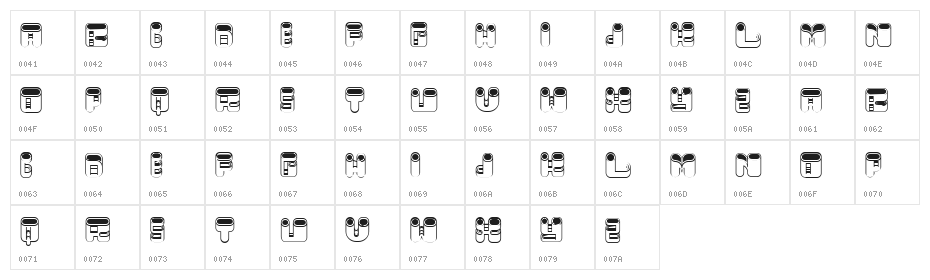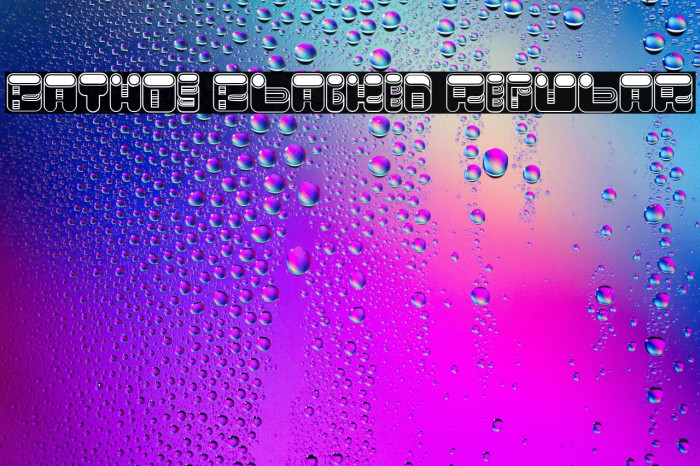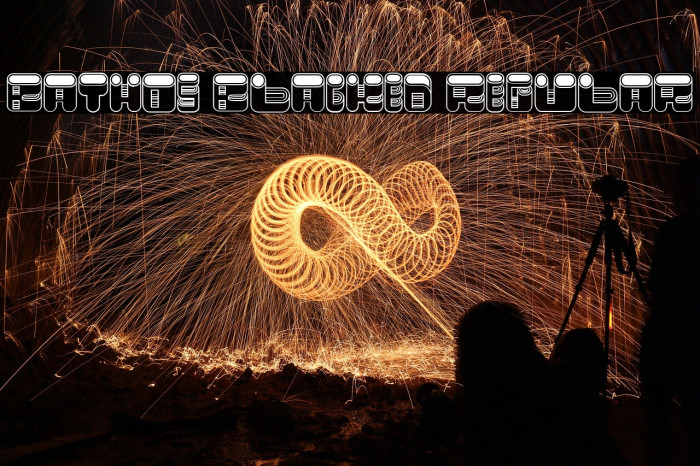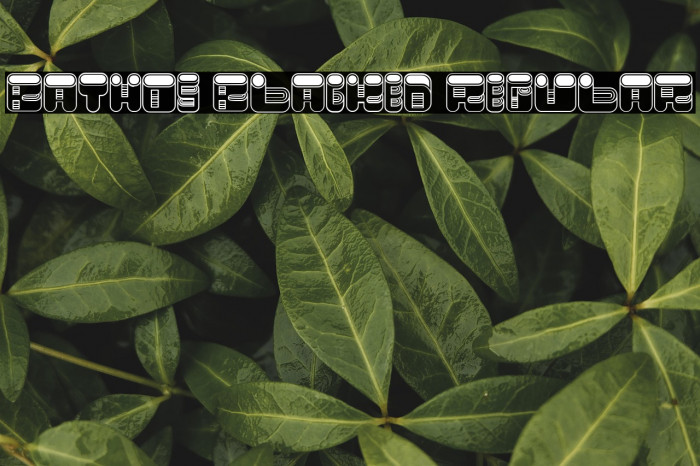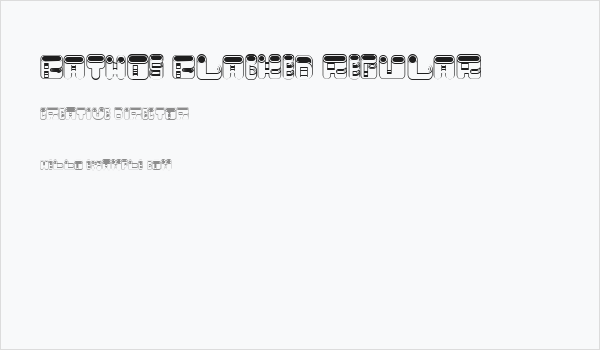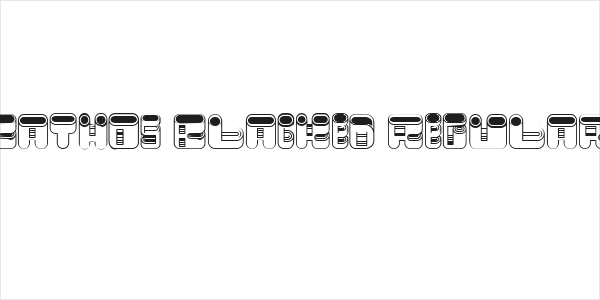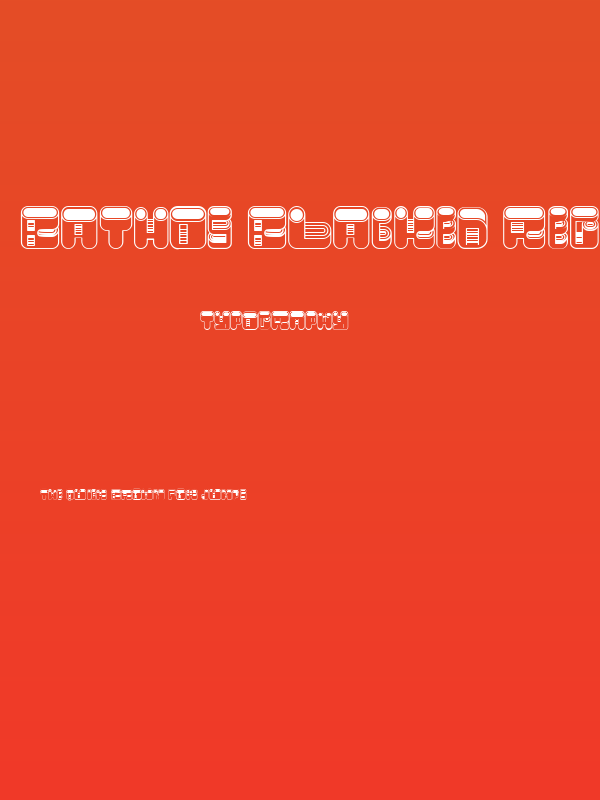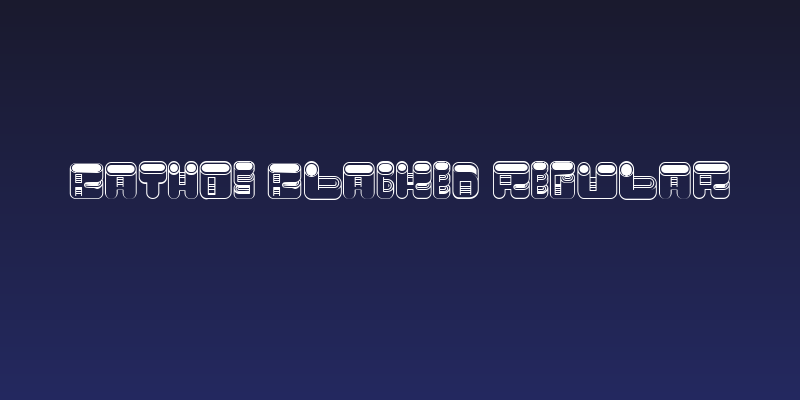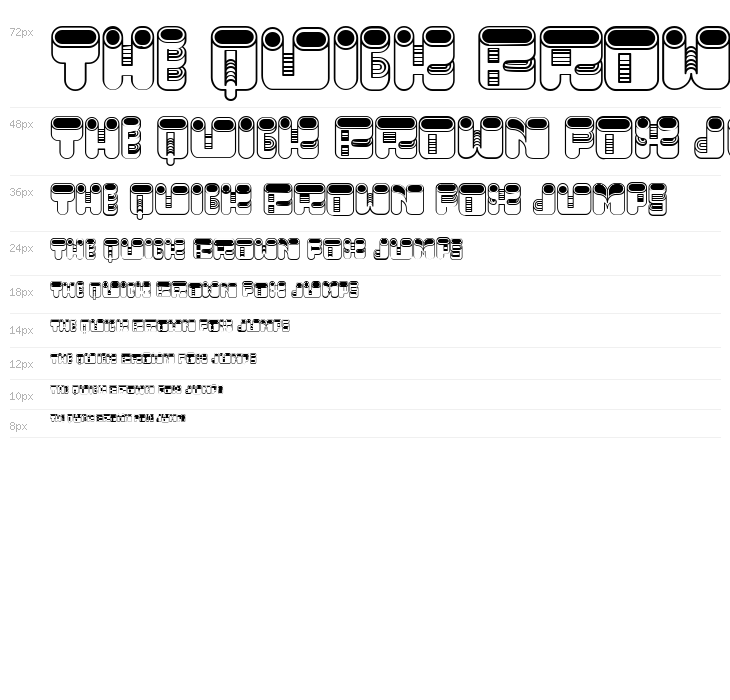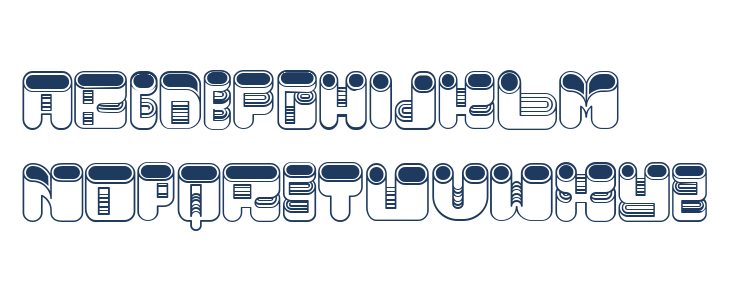
Bathos Blacked Regular Font
Bathos Blacked Regular Description
This font features a bold, decorative style with a unique, tubular design. Each character is enclosed within a thick outline, creating a three-dimensional effect. The letters are highly stylized, with intricate patterns and lines within the outlines, adding depth and visual interest. The overall appearance is playful and futuristic, making it stand out in any design. The font is consistent in its boldness and maintains a uniform width across all characters, ensuring readability despite its decorative nature.